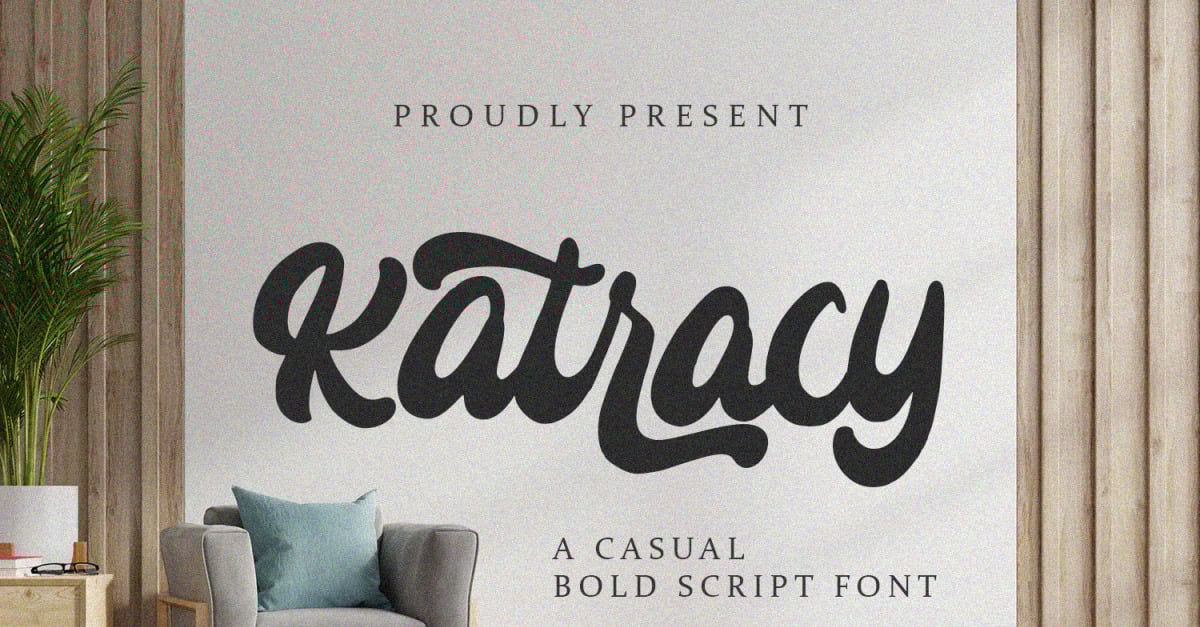
Katracy - Bold Cursive Font
Katracy is a stunning bold style script font with authentic and casual feels. It will be perfectly used for Branding, Logo Design, Lettering, Logotype, Clothing, Poster, magazine, packaging, posters, shopping bags, t-shirts, book covers, photography, special events, and other design project.